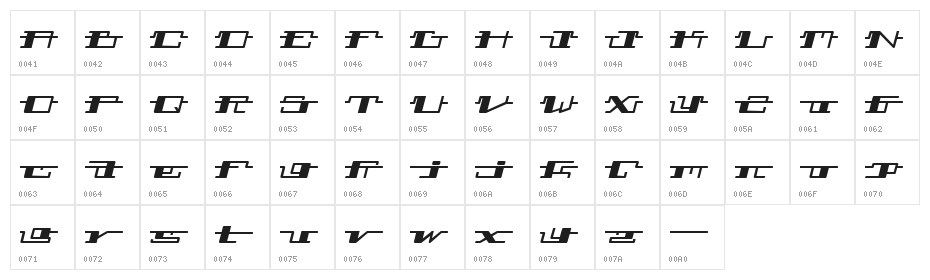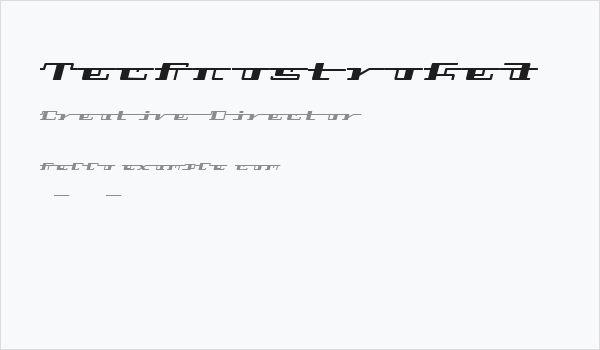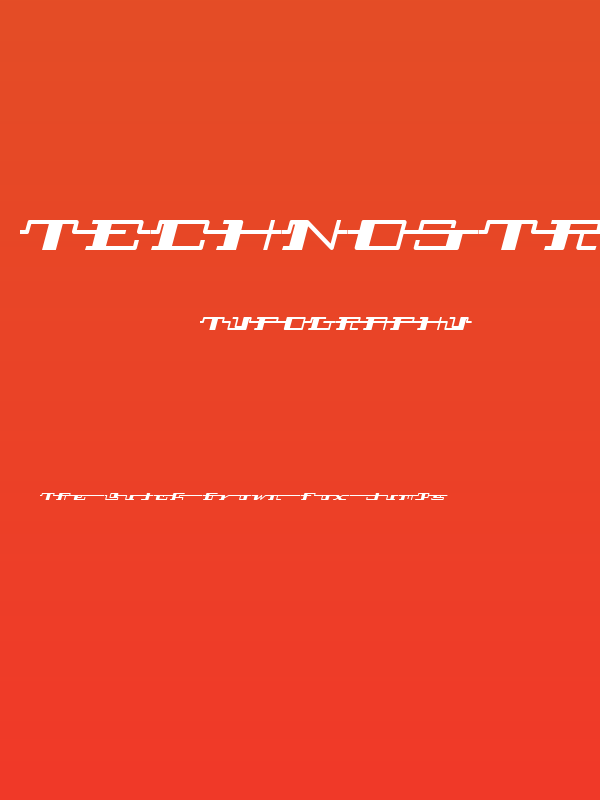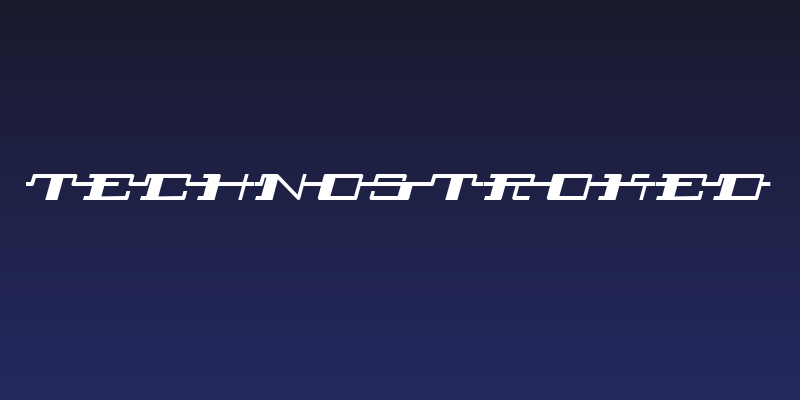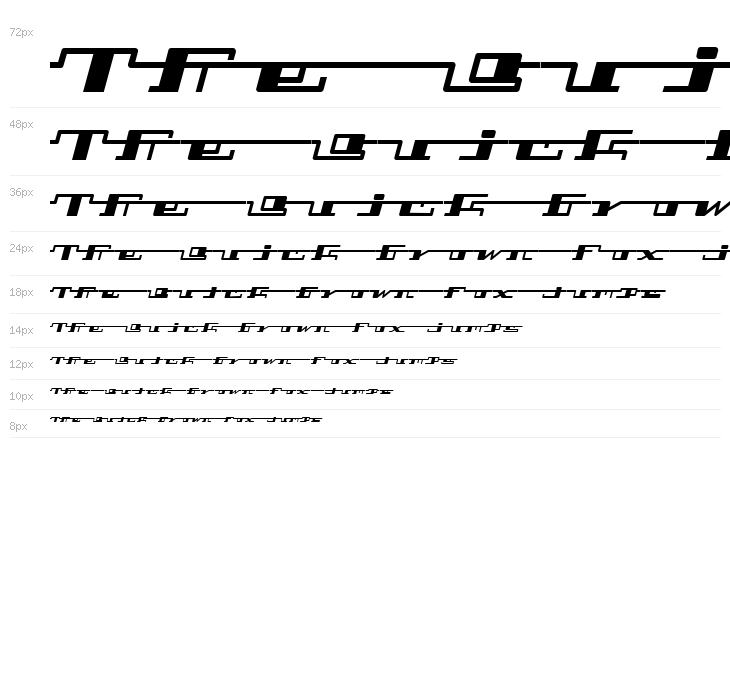
Technostroked Font
Technostroked Description
This font features a futuristic and angular design, characterized by sharp edges and a geometric structure. The letters are bold and have a distinct techno-inspired aesthetic, with a consistent stroke width that gives a uniform appearance. The uppercase and lowercase letters maintain a cohesive style, while the numerals and special characters integrate seamlessly with the overall design. The font's unique style makes it stand out, with each character having a slightly elongated form that adds to its modern appeal.
| Proposed Projects | Ideal for technology-themed projects, sci-fi movie posters, video game titles, and branding for tech companies. |